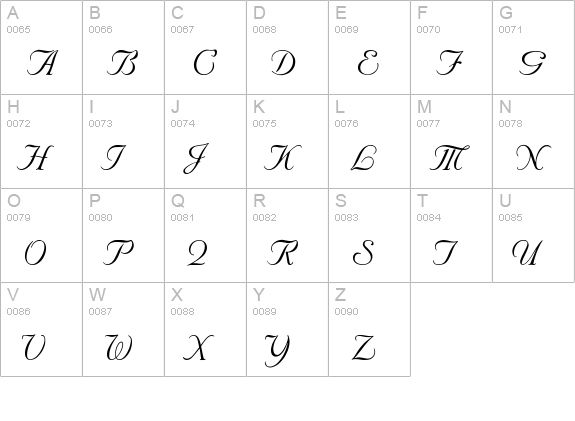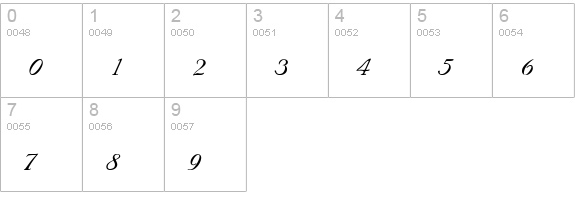
SNC Script - DGL Italic Font Details
SNC Script - DGL Italic is a distinctive, italic variant in the SNC typeface family \xE2\x80\x94 well suited to design and typography projects.
Introducing the SNC Script - DGL Italic font, a captivating and versatile typeface that effortlessly combines elegance with a touch of playfulness. This beautifully designed script font is perfect for adding a unique and personal touch to your projects, whether it be invitations, logos, branding materials, or social media graphics. With its flowing and graceful letterforms, SNC Script - DGL Italic brings a sense of sophistication to any design. Its delicate curves and stylish flourishes add an air of refinement, making it ideal for creating eye-catching headlines or adding a touch of elegance to your typography. But what truly sets SNC Script - DGL Italic apart is the fact that it is available for free! Yes, you read that right. This stunning font can be freely downloaded at FontsMarket.com, giving you the opportunity to enhance your creative projects without breaking the bank. Crafted with meticulous attention to detail, SNC Script - DGL Italic offers a wide range of glyphs, including alternate characters and ligatures, allowing you to create truly unique and customized designs. Whether you prefer a more traditional or modern look, this font has you covered. With its easy-to-read style and impeccable legibility, SNC Script - DGL Italic is suitable for a variety of design projects, from wedding invitations and greeting cards to product packaging and signage. Its versatility ensures that it will become a valuable addition to your font library, ready to be used whenever inspiration strikes. So why wait? Discover the beauty and versatility of SNC Script - DGL Italic today. Download it for free at FontsMarket.com and unlock a world of endless design possibilities.